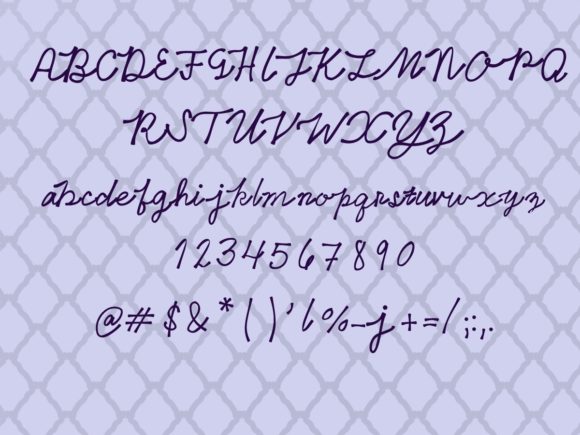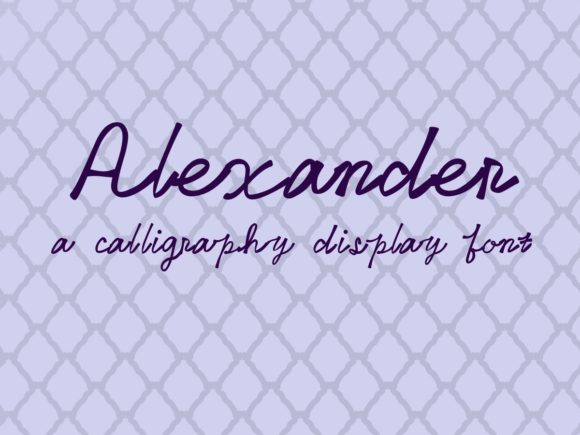
The Elegance of Alexander Font: A Designer’s New Best Friend
I’ll never forget the time I was working on a wedding invitation project, and my client asked for a font that exuded elegance and sophistication. I scoured the internet, tried out dozens of fonts, but nothing seemed quite right. That was until I stumbled upon Alexander Font. ✨
Alexander is an elegant script font with a contemporary atmosphere and impeccable form, inspired by timeless classic calligraphy. Not too thin and not too thick, balanced and varied, this font was designed to enhance the beauty of your projects. In this article, I’ll share my experience with Alexander Font, its features, and how to make the most of it in your designs.
An Honest Review of Alexander Font
- ✨ Elegant and sophisticated, perfect for high-end projects
- ✅ Well-balanced and varied, making it versatile for different design applications
- 💫 Beautifully crafted, with attention to detail and a clear focus on typography
- 👍 Easy to read, even in smaller sizes
While Alexander Font is an excellent choice for many projects, there are a few things to keep in mind: 🤔
- ⚠️ Limited use of all-caps, as it can look a bit awkward
- ⚠️ Not ideal for body text, as it’s best suited for headings and titles
The Story Behind Alexander Font
Alexander Font was designed with the goal of creating a timeless, elegant script font that would appeal to designers and crafters alike. Inspired by classic calligraphy, the font’s creator aimed to craft a font that was both beautiful and functional. With its balanced and varied design, Alexander Font is perfect for a wide range of projects, from wedding invitations to branding and packaging.
Q: Is Alexander Font suitable for body text?
A: While Alexander Font is an excellent choice for headings and titles, it’s not ideal for body text. Its elegant design is best suited for larger sizes and attention-grabbing applications.
Q: Does Alexander Font support OpenType features?
A: Yes, Alexander Font supports OpenType features, including ligatures, stylistic alternates, and glyphs. Experiment with these features to add visual interest to your designs.
Q: Is Alexander Font available in different weights or styles?
A: Alexander Font is a single-weight font, but its balanced design makes it versatile for different applications. You can experiment with different sizes, colors, and effects to achieve the desired look.